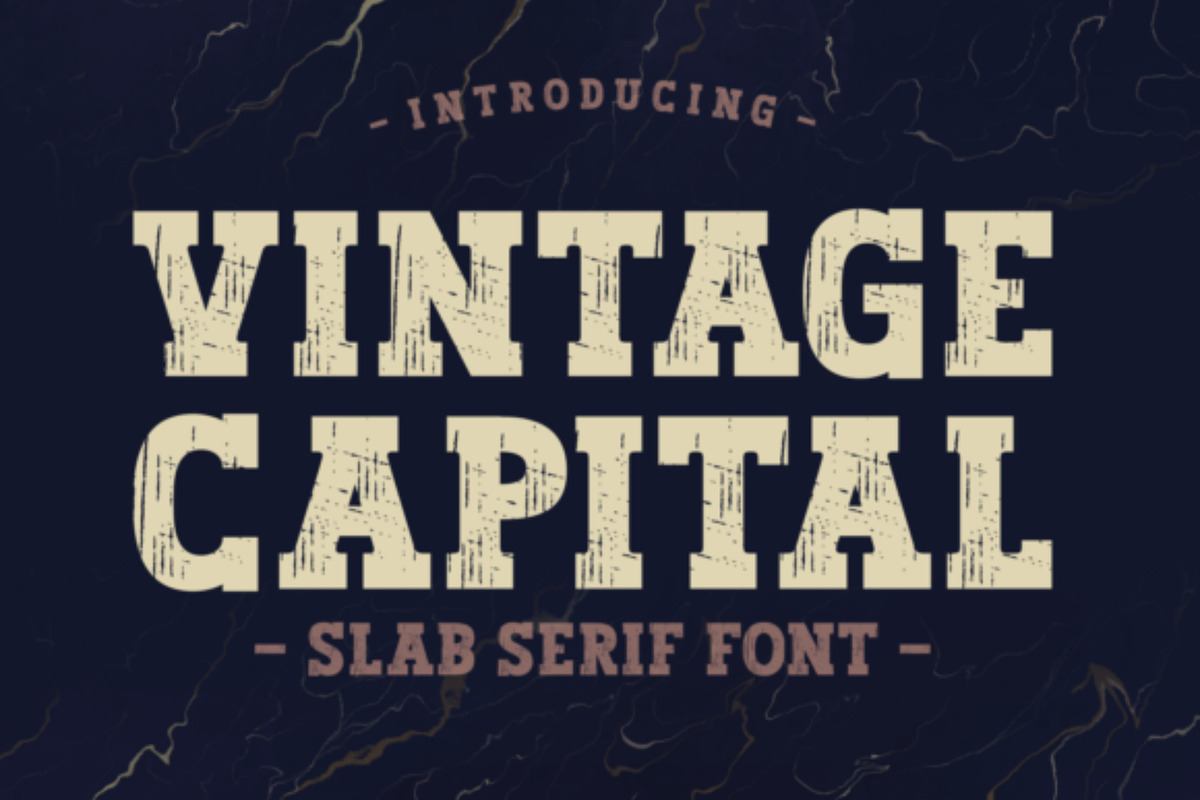
Vintage Capital Font | Slab Serif Free Download
The Vintage Capital Font | Slab Serif Free Download is a bold and timeless typeface designed to add a classic, vintage touch to your designs. With its strong, sturdy serifs and capitalized letterforms, this font is perfect for creating eye-catching logos, posters, headlines, and more. Its vintage appeal and solid design make it ideal for projects that require a sense of tradition, strength, and style.
Vintage Capital Font | Slab Serif Free Download is perfect for designers looking to create bold, impactful designs with a retro flair. Whether you're working on branding, signage, or print materials, this font will give your work a sophisticated, timeless quality. Download this elegant slab serif font today and add a touch of vintage class to your designs!